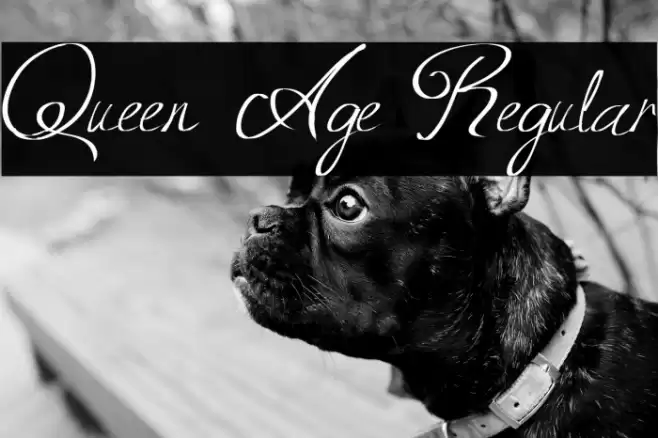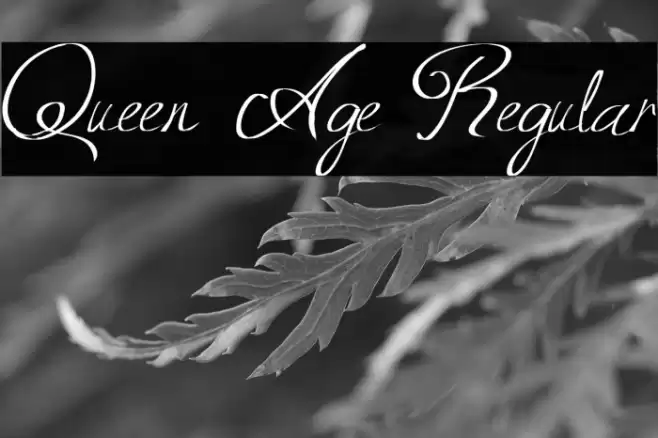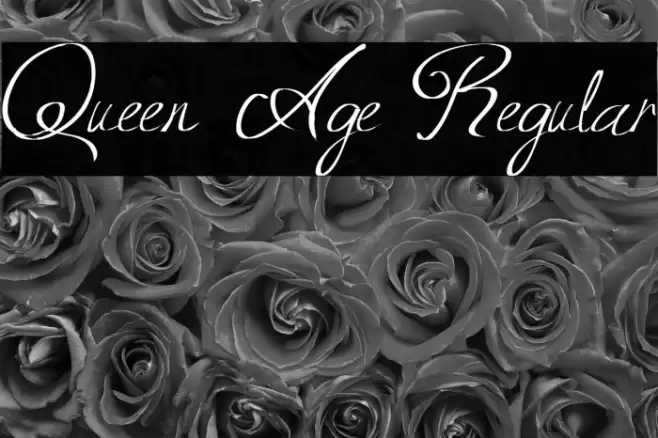
Queen Age Regular Font
Queen Age Regular Description
This elegant script font features a flowing, cursive style with high contrast between thick and thin strokes. The characters are gracefully connected, giving a sense of fluidity and movement. The uppercase letters are particularly ornate, with intricate loops and swirls that add a touch of sophistication. The lowercase letters maintain a consistent style, complementing the uppercase with their own subtle flourishes. The numerals are distinct yet harmonize well with the overall design, while the special characters retain the font's decorative essence. This font exudes a sense of luxury and refinement, making it ideal for formal and creative applications.
An elegant script font with flowing, high-contrast strokes and ornate details from Uncategorized fonts.
- Proposed Projects: Ideal for wedding invitations, luxury branding, elegant stationery, and artistic projects.
- Overall Style: Elegant, Decorative
- Use Case: Invitations, Branding, Artistic projects